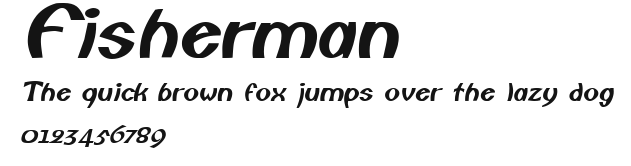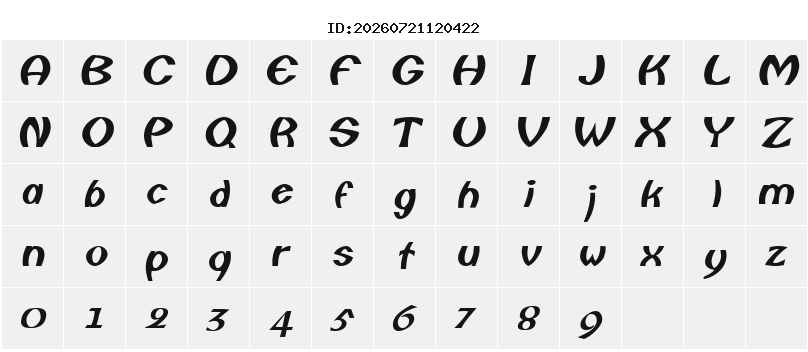
• Font Name: Fisherman
• Font Style: Oblique
About Fisherman.ttf
Fisherman.ttf is a modern, elegant sans-serif font designed for ultimate readability and visual harmony. Perfect for branding, headlines, web design, and print materials.